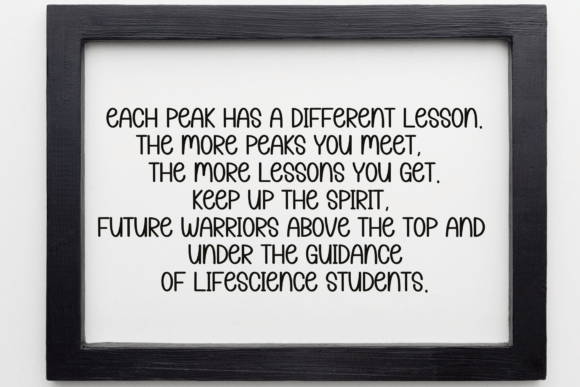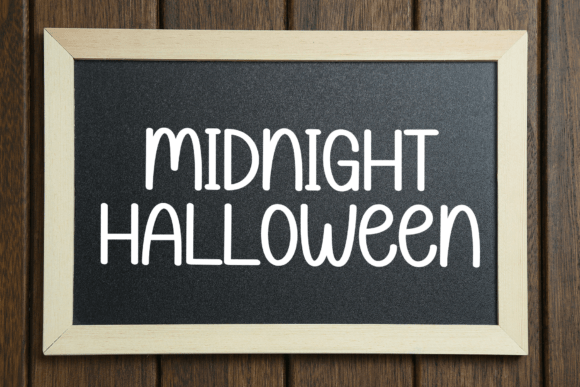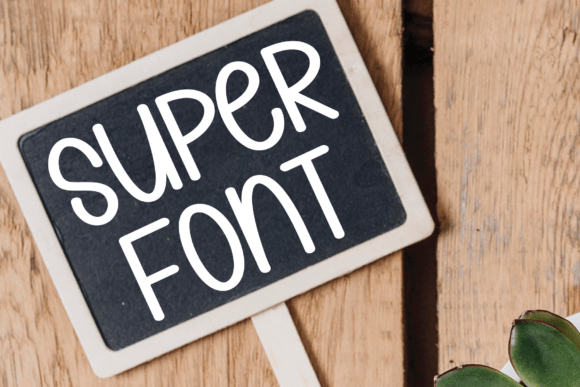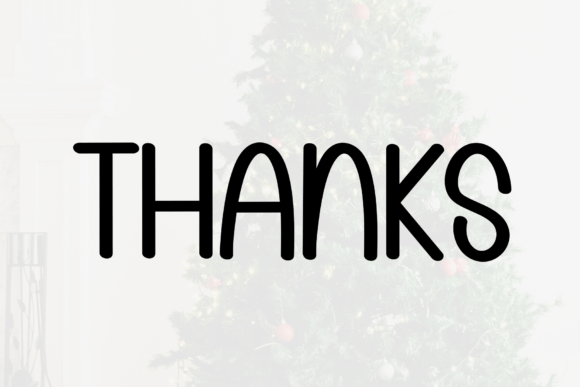
Introduction to Light Christmas Font
As a designer, there’s nothing quite like the rush of finding the perfect font for your creative project. It’s the moment when everything comes together, and your design starts to feel truly special. For me, that moment came when I stumbled upon the Light Christmas Font – a charming handwritten font that’s filled with a sense of heartfelt perfection.
With its smooth strokes and organic lines, the Light Christmas Font is the perfect addition to any design project. Whether you’re working on branding, invitations, or social media graphics, this font is sure to bring a touch of warmth and personality to your work. And the best part? It’s a high-quality design resource that’s available for free download – making it a valuable asset for designers of all levels.
Key Features of Light Christmas Font
- High-quality design: The Light Christmas Font is a beautifully crafted, high-quality design resource perfect for any creative project.
- Transparent background: The font features a transparent background, allowing for easy layering and customization in your designs.
- Unique characteristics: The Light Christmas Font features a unique and festive design, making it perfect for holiday-themed projects and designs.
- Perfect for print and digital: Suitable for both print and digital applications, including business cards, posters, and social media graphics.
Honest Review: Light Christmas Font
I recently had the opportunity to work with the Light Christmas Font and I must say, it’s a great addition to any design project. This font is perfect for those who want to add a touch of holiday cheer to their designs without sacrificing quality.
- ✨ High quality design: The font is well-designed, with crisp and clear lines that make it perfect for print and digital use.
- ✨ Transparent background: The font comes with a transparent background, making it easy to layer over other design elements.
- ⚠️ Limited character set: The font only includes a limited set of characters, making it less versatile than some other fonts.
- ⚠️ Not suitable for all designs: While the font is perfect for holiday-themed designs, it may not be the best choice for more general or everyday designs.
Overall, I’m impressed with the Light Christmas Font and would definitely recommend it to designers who are working on a creative project and need a high-quality design resource.
The Light Christmas Font is perfect for a variety of creative projects, including holiday cards, social media posts, and gift tags. It’s also a great resource for designers looking to add a festive touch to their designs without sacrificing quality or style.